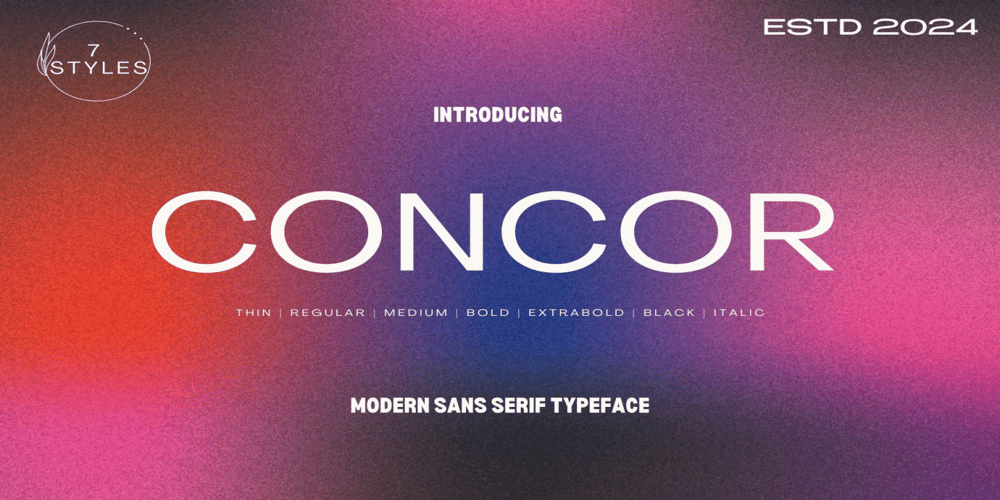
Concor Family
Concor Family font
Concor Family Font Family was designed by Claudio Piccinini and published by Adita Fonts. Concor Family contains 4 styles and family package options. Concur Sans Serif Font Family is a contemporary type family that puts together the best qualities of Swiss neo-grotesks and geometric fonts. It’s a multifunctional workhorse designed to work best in any printed and on-screen contexts, including logo design, brand identities, websites, packaging, posters and headlines; regular weight is carefully tuned for small sized body text. Concur Sans comes in 7 weights, upright and slanted each.